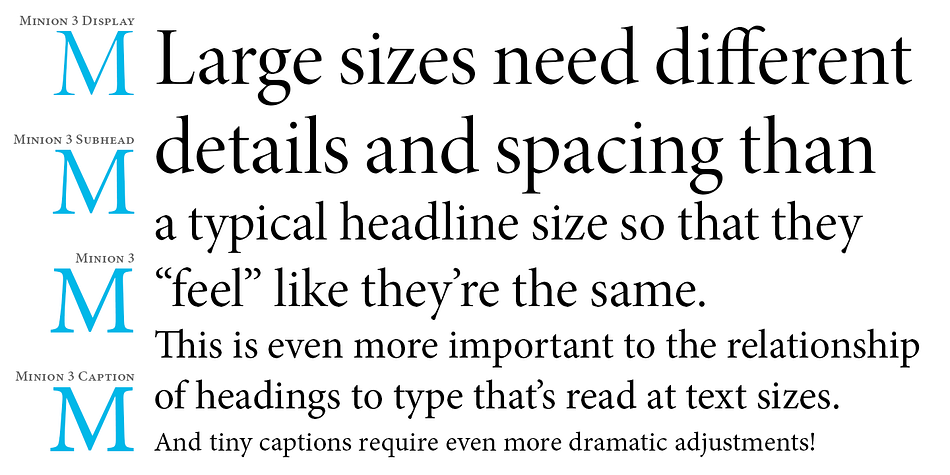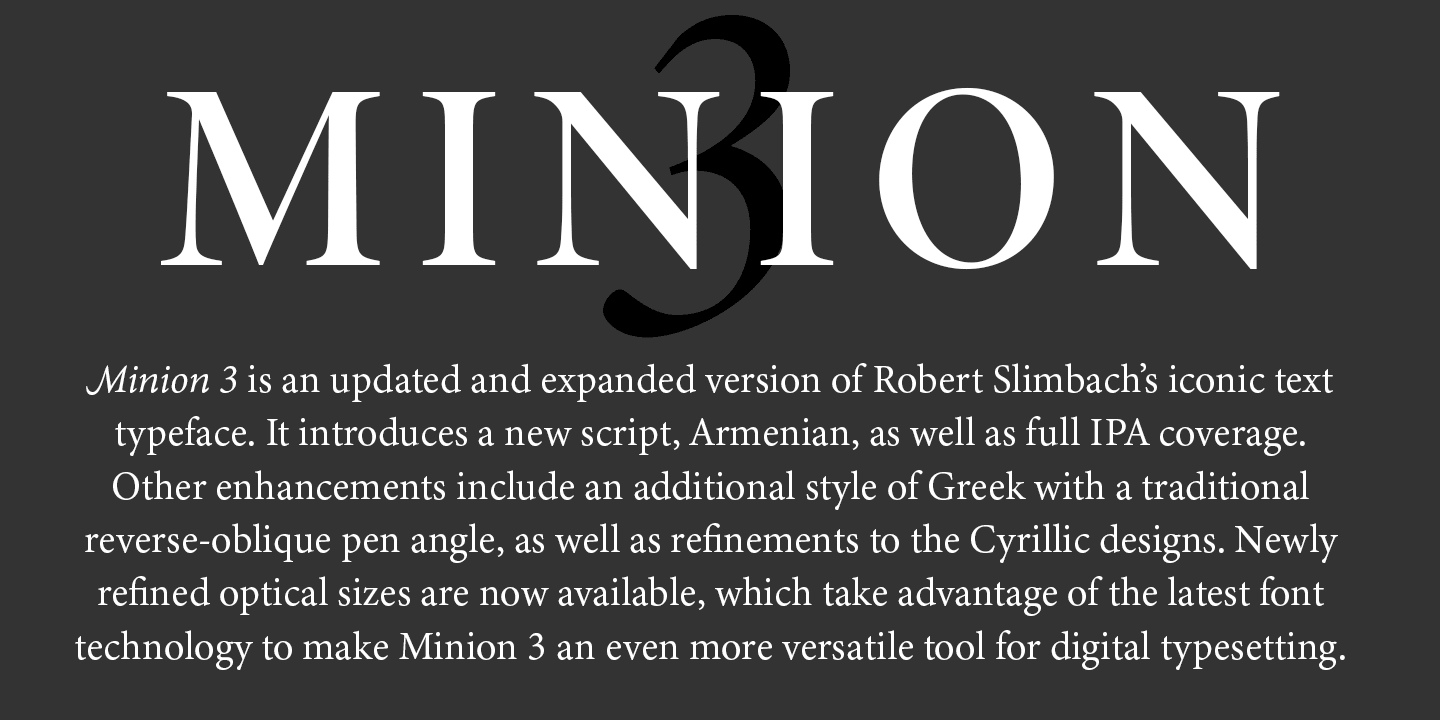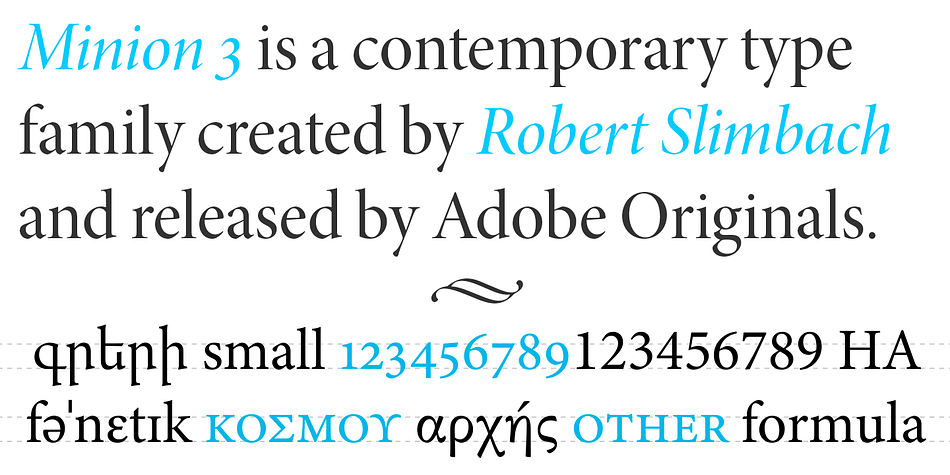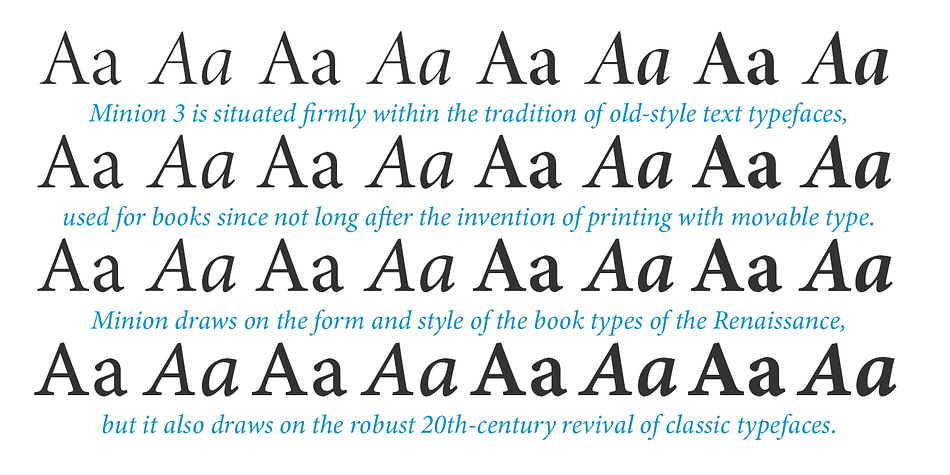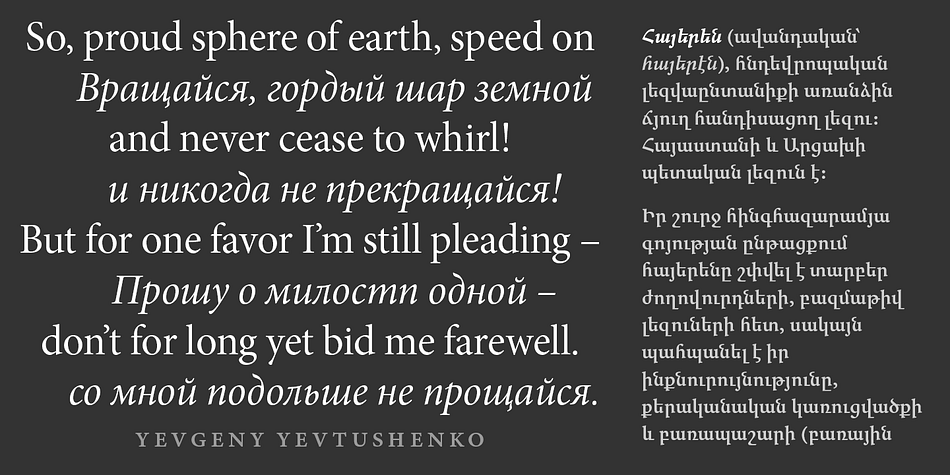
Minion 3 is a serif font family. This typeface has thirty-two styles and was published by Adobe.
Minion is a contemporary type family created by Robert Slimbach and released by Adobe Originals. Since its earliest release, Minion has proven to be a versatile typeface for text and display, used widely in books and in editorial design where readability and elegance are necessities.
With Minion 3, Slimbach had the opportunity to re-examine the Minion family and to extend it further, nearly doubling the number of Latin glyphs to cover African languages and Vietnamese, as well as full IPA (International Phonetic Alphabet). Slimbach has also extensively refined the Cyrillic and Greek scripts, and introduced Armenian script in addition.
Minion 3 is available in four weights and four optical sizes, each with corresponding italics. Visit minion.typekit.com for a detailed exploration of the design history and technical considerations for this latest expansion on one of Adobe’s most beloved type families.